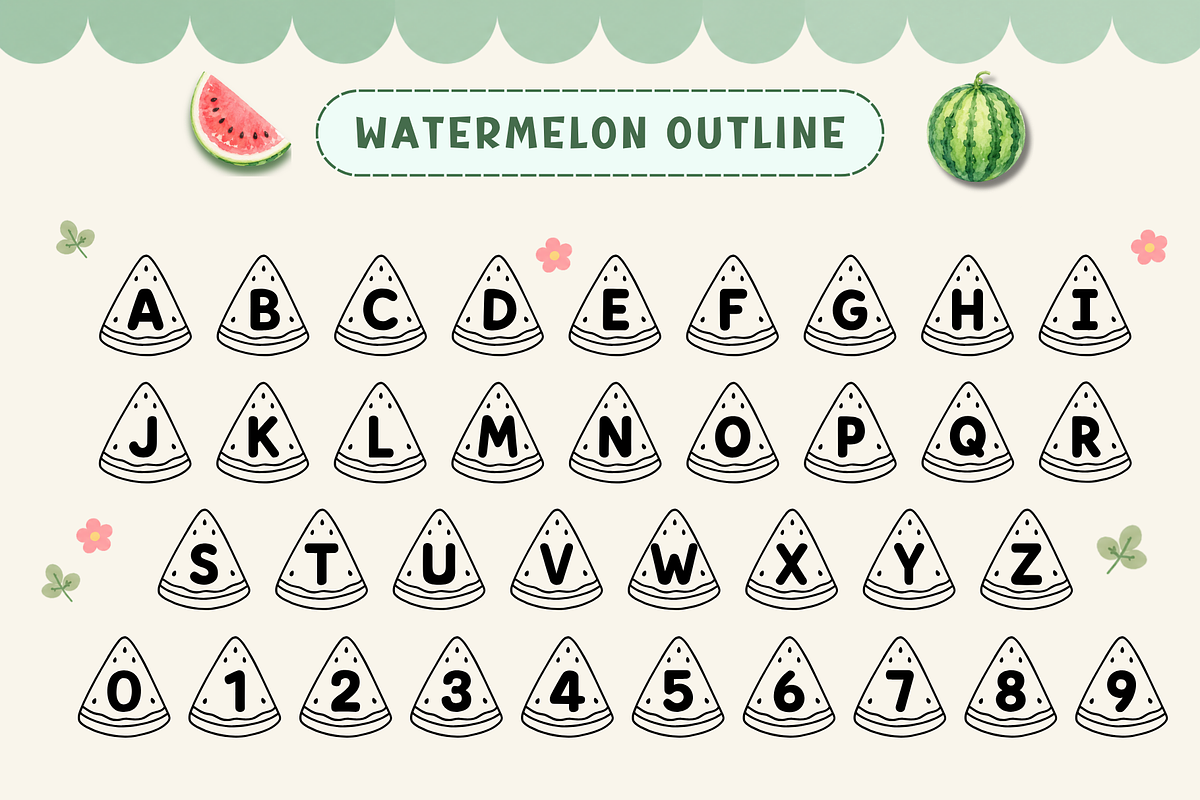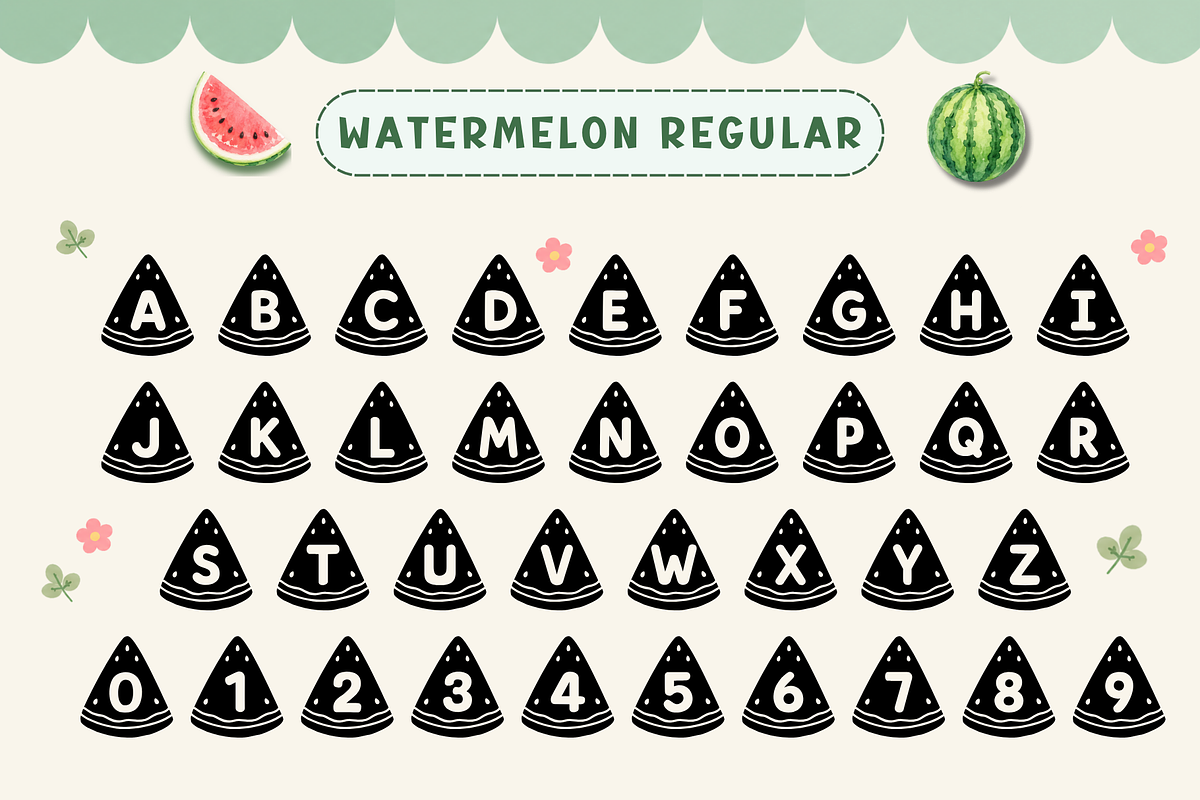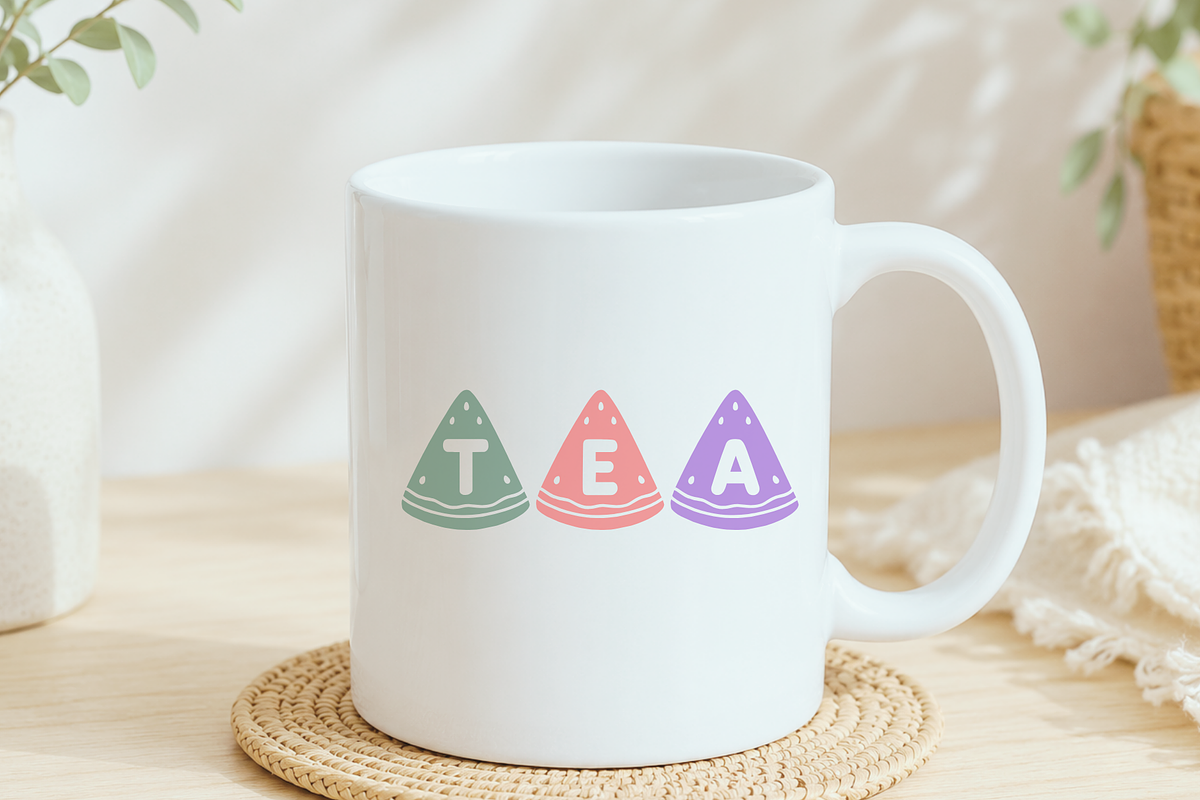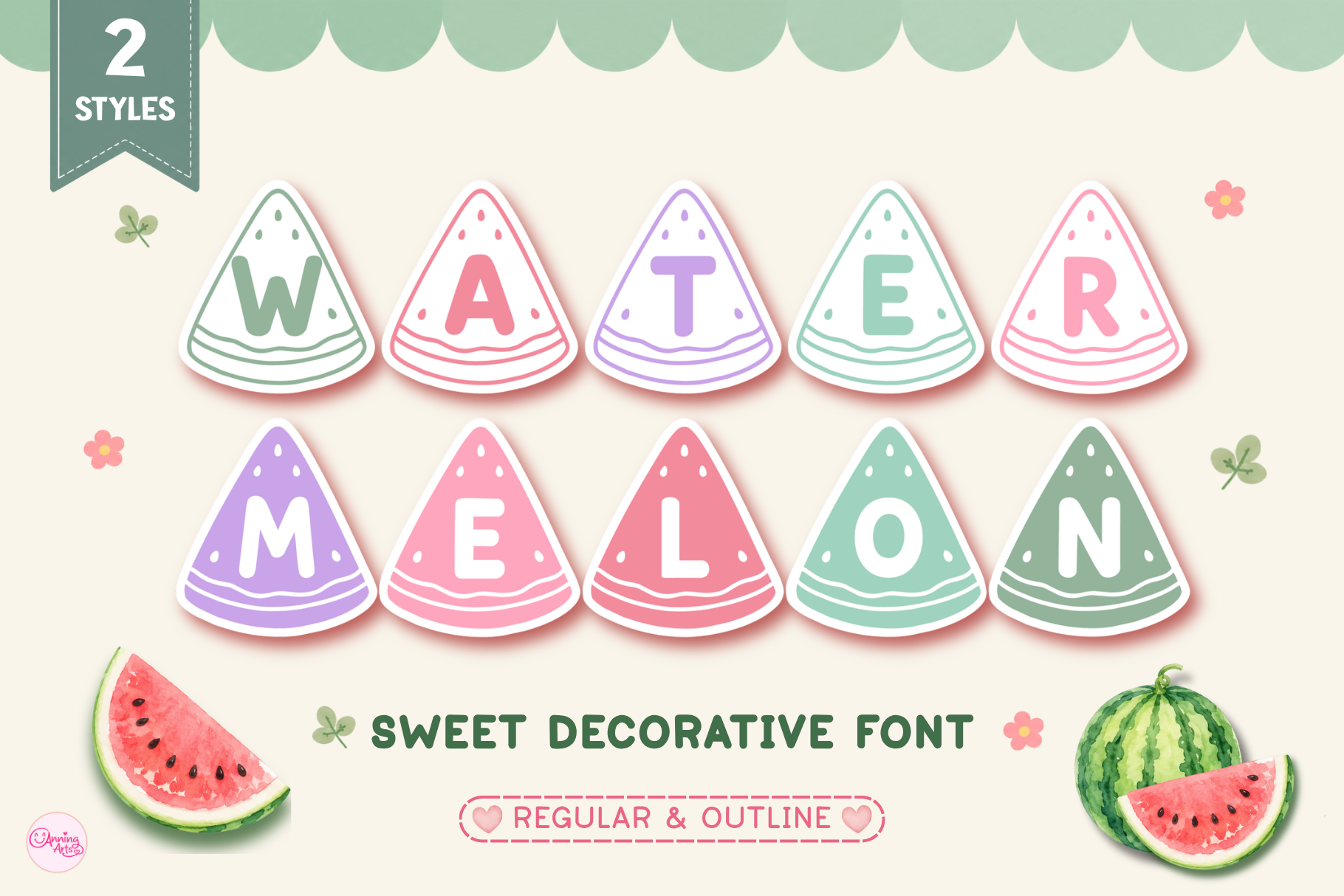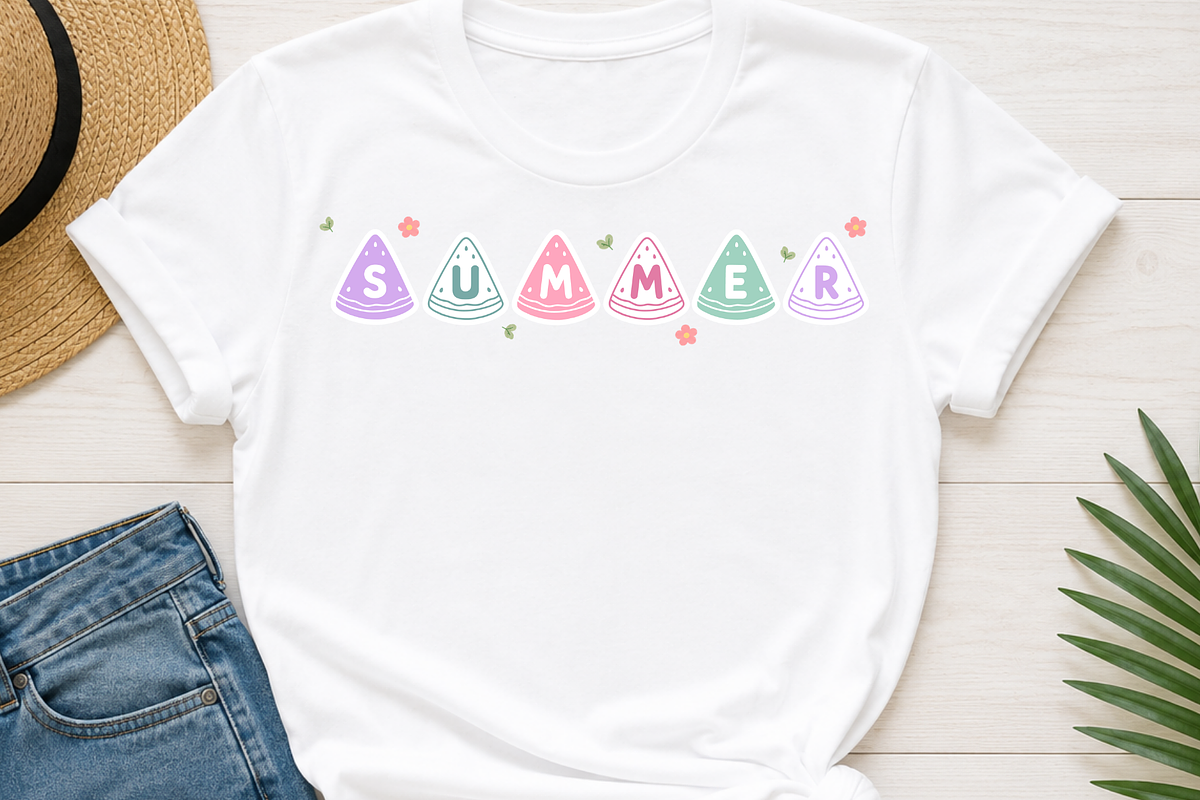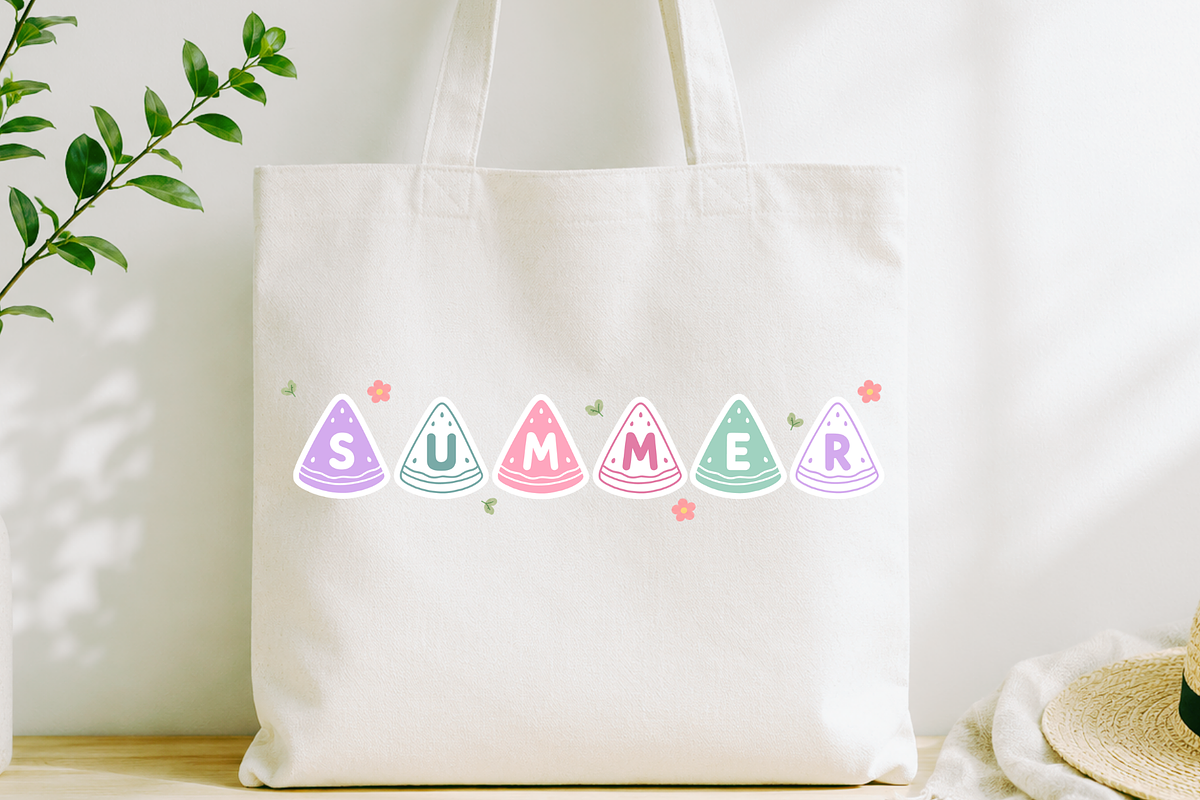
Watermelon Decorative Font Duo
Watermelon Font Duo is a playful decorative fruit font inspired by cute watermelon slices. This font bundle includes both Regular and Outline styles, making it perfect for branding, logo design, packaging, Cricut projects, sublimation, t-shirts, mugs, stickers, invitations, classroom resources, and handmade businesses. Includes uppercase letters and numbers with adorable watermelon-inspired characters.